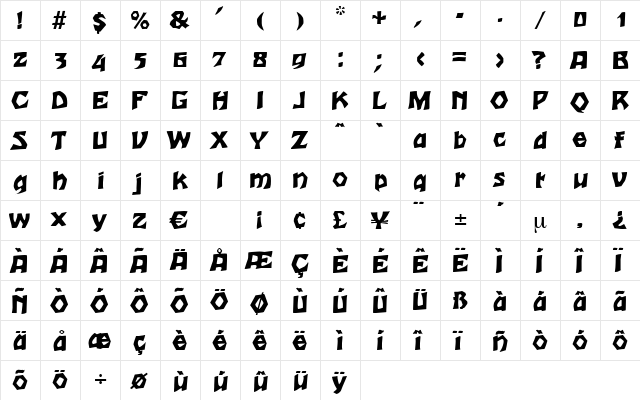
Mahagoni Regular
Design Context for Mahagoni Typeface
Mahagoni is a composed and adaptable typeface that performs quietly and consistently across a wide range of design contexts.